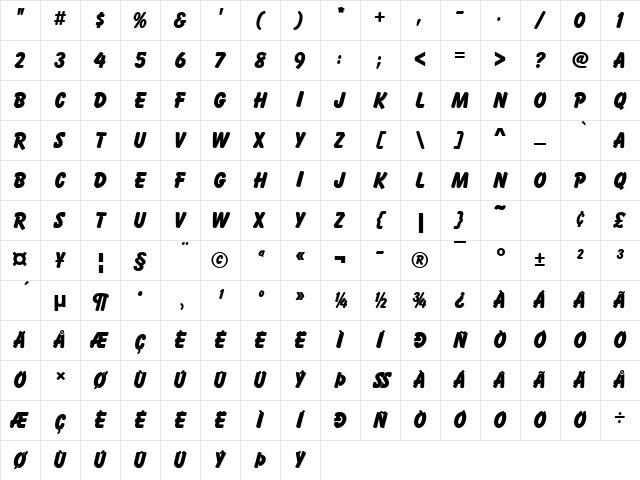
BalloonPExtBol Regular Free Font
BalloonPExtBol Regular
Complete BalloonPExtBol Regular glyph index. Displaying only characters natively supported by BalloonPExtBol Regular font.
Design Context for BalloonPExtBol
BalloonPExtBol is a composed and adaptable typeface that performs quietly and consistently across a wide range of design contexts.